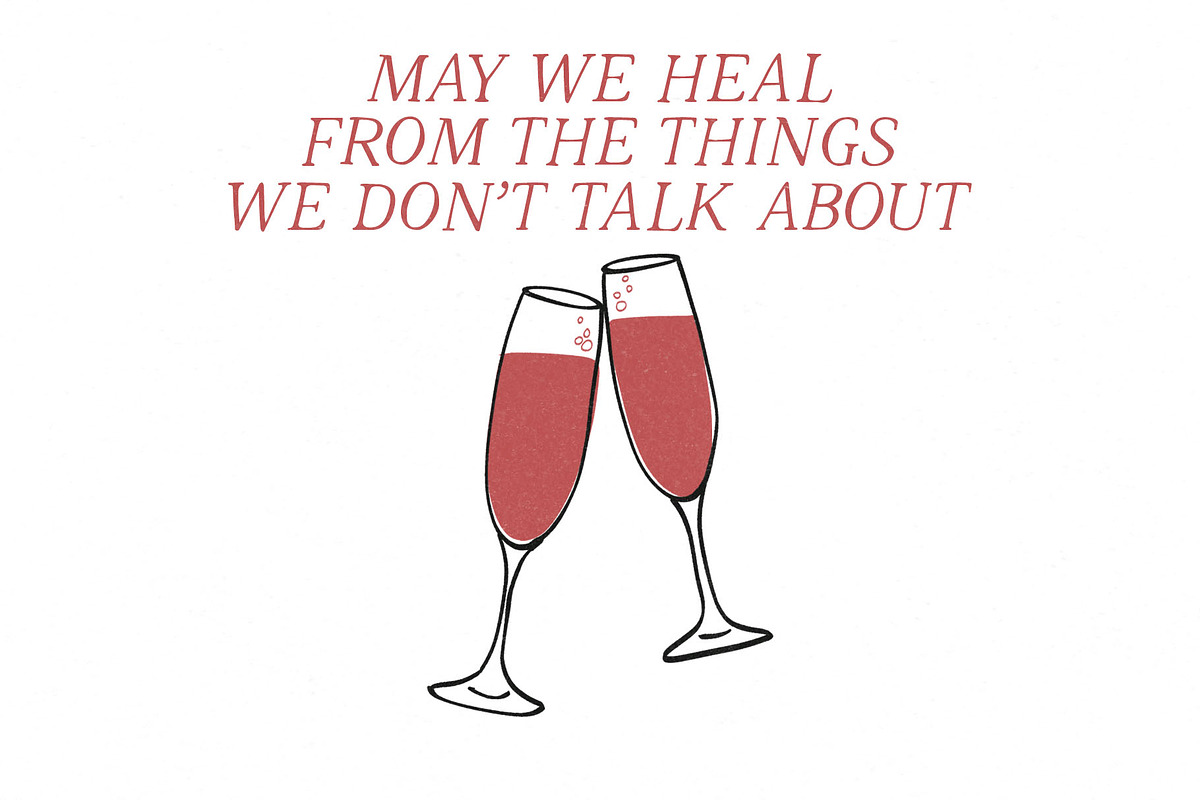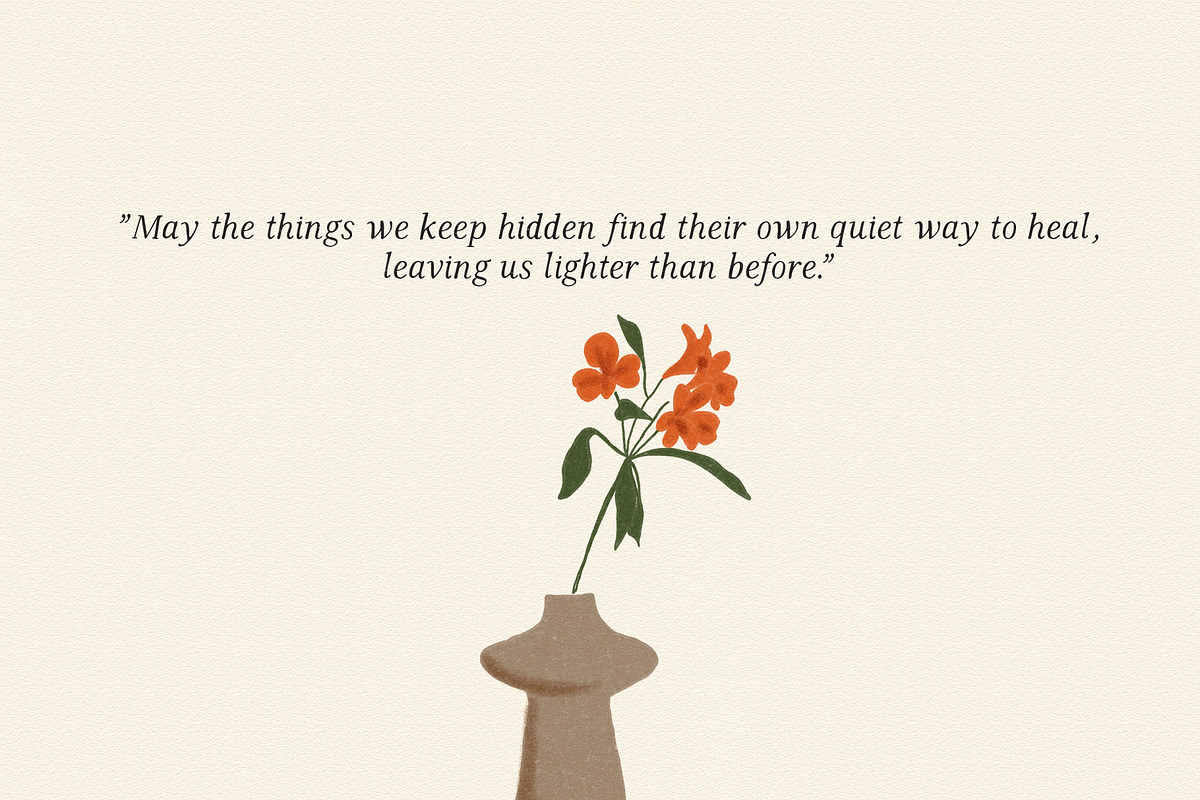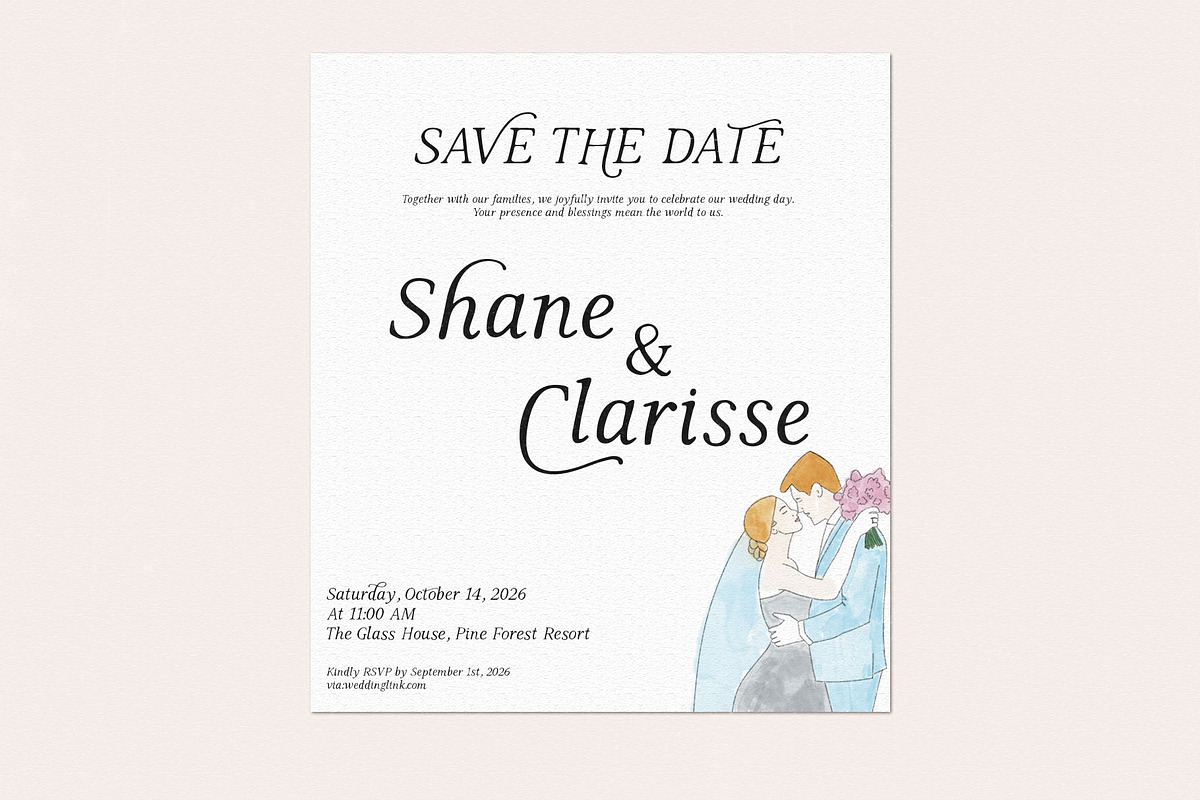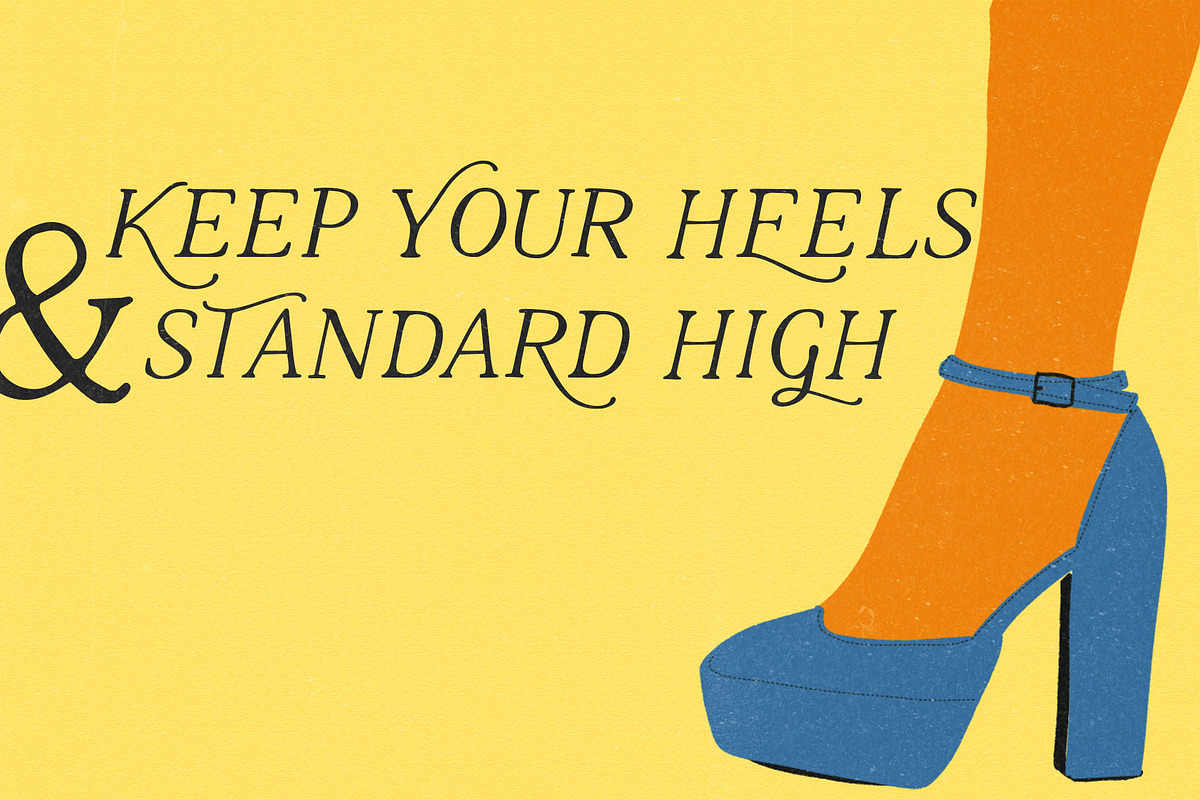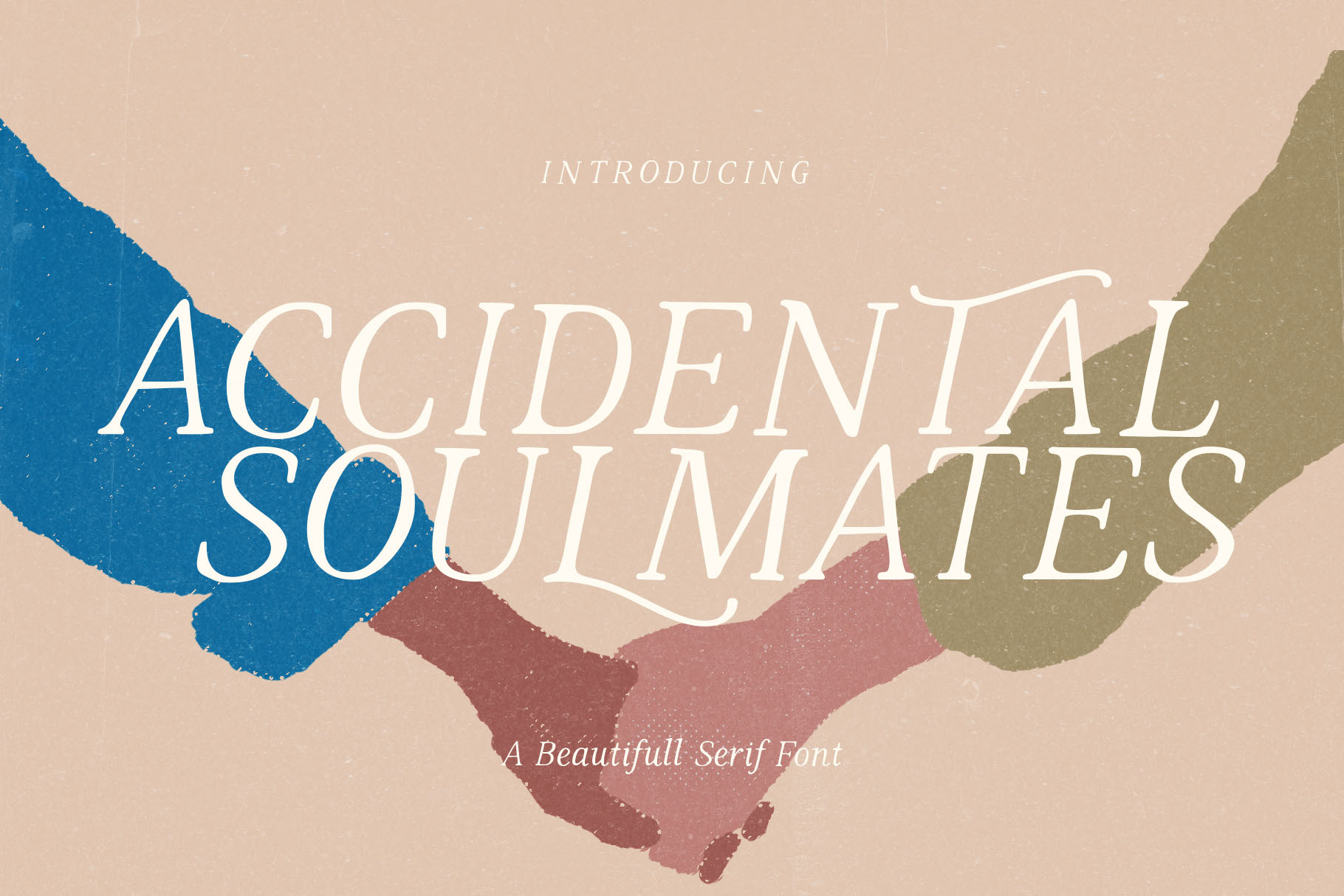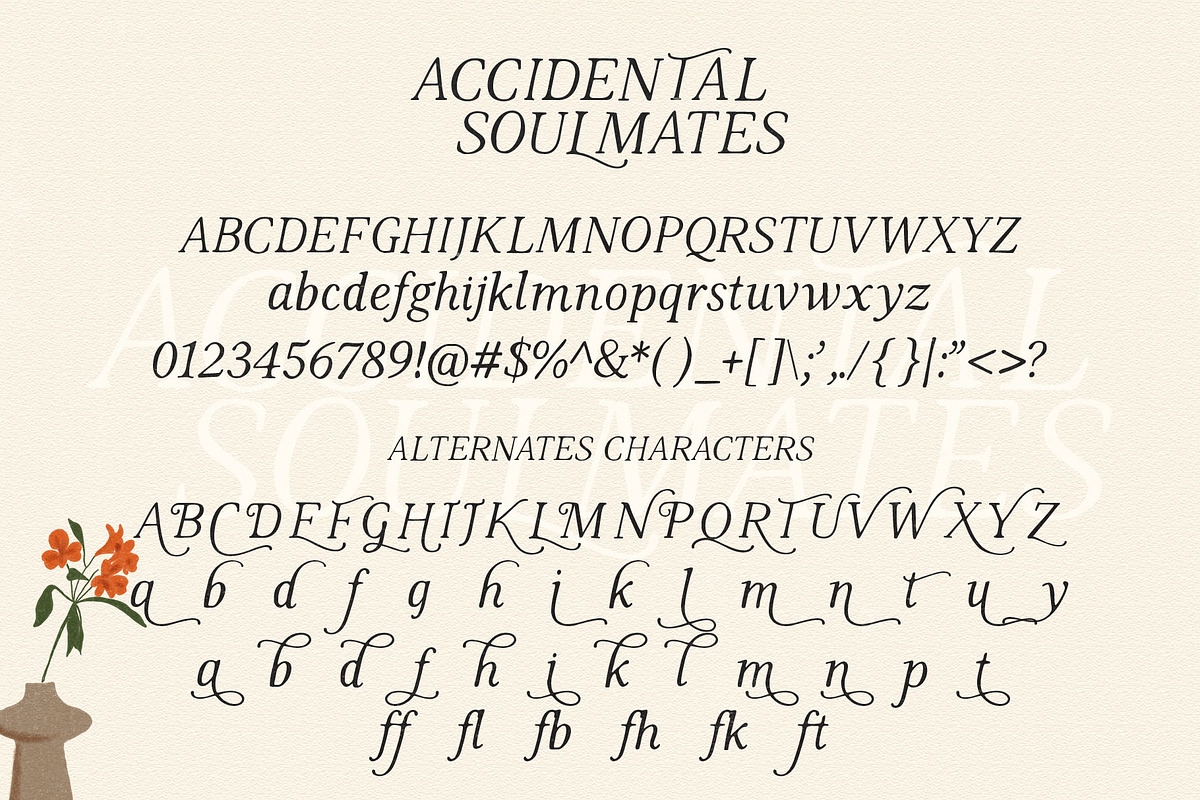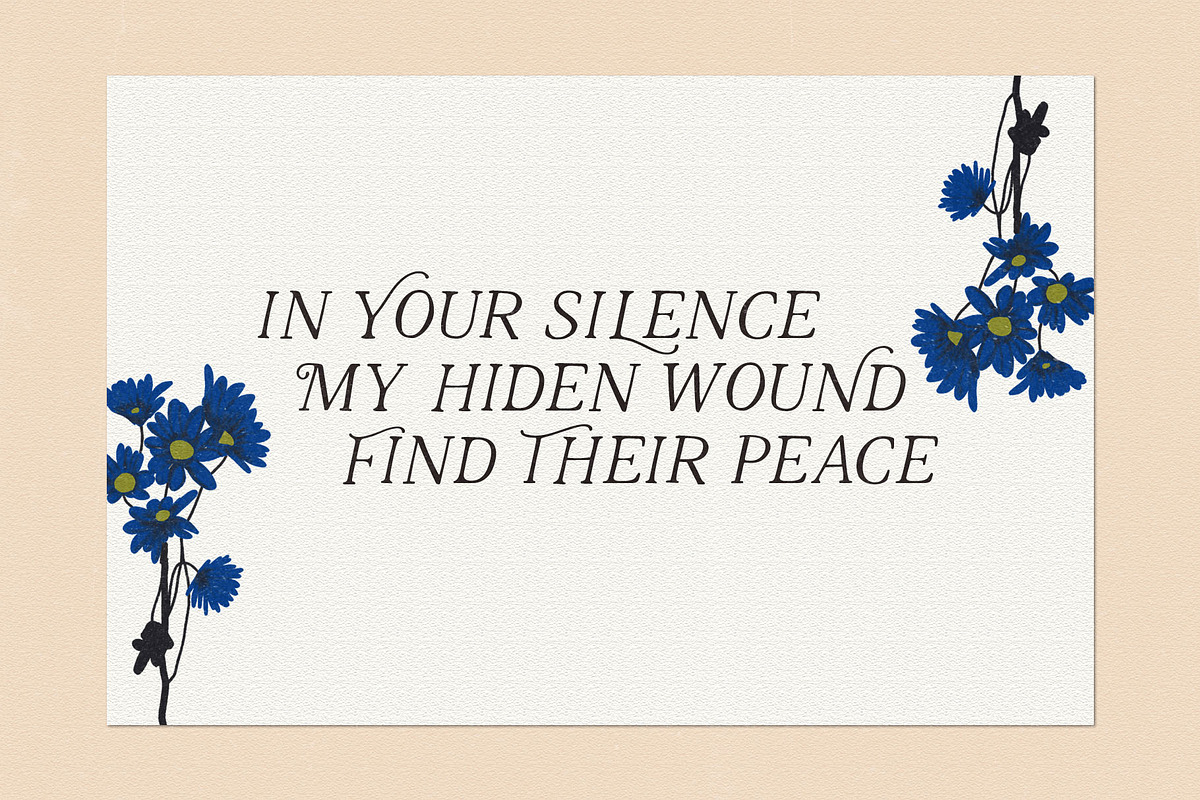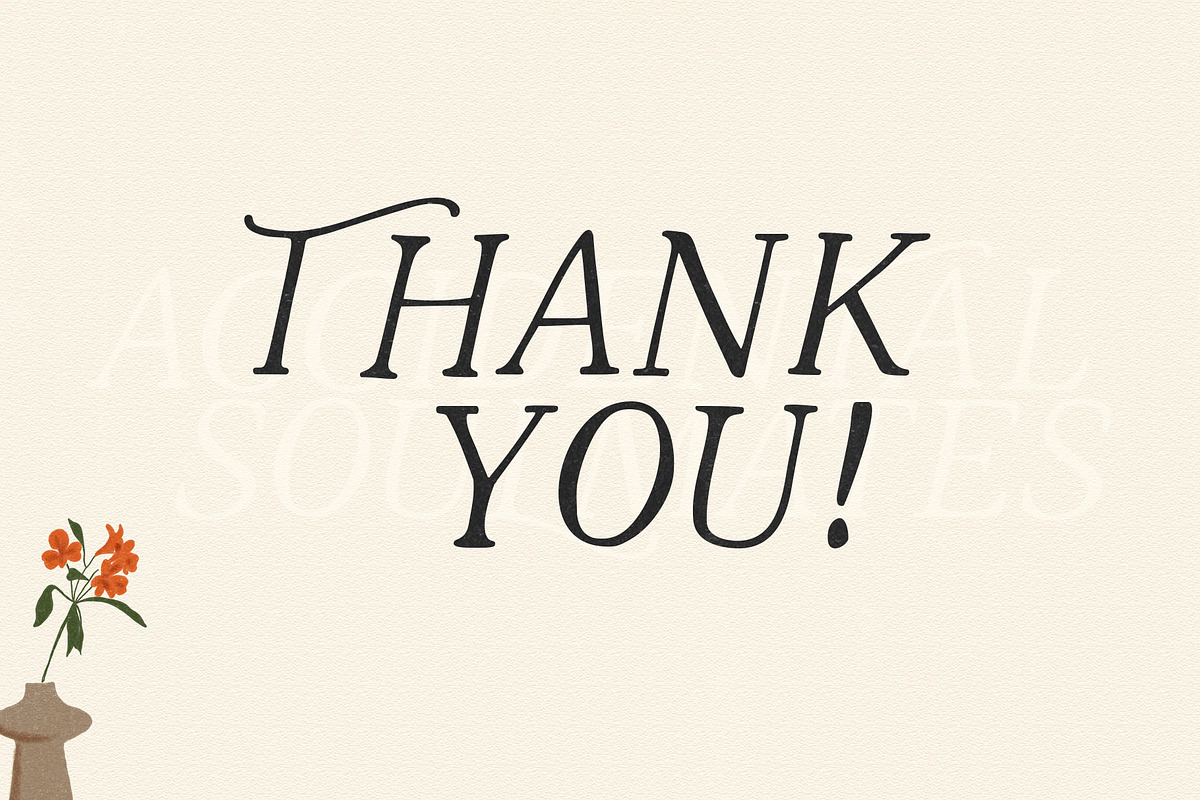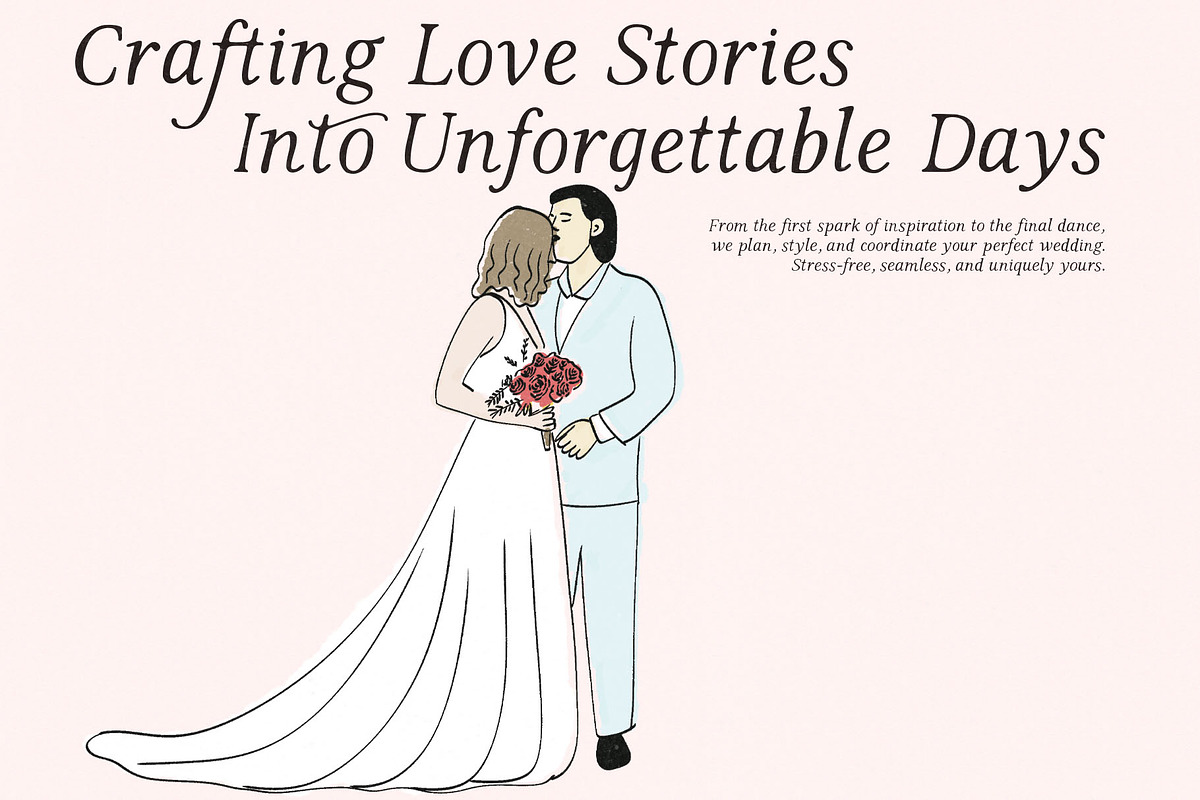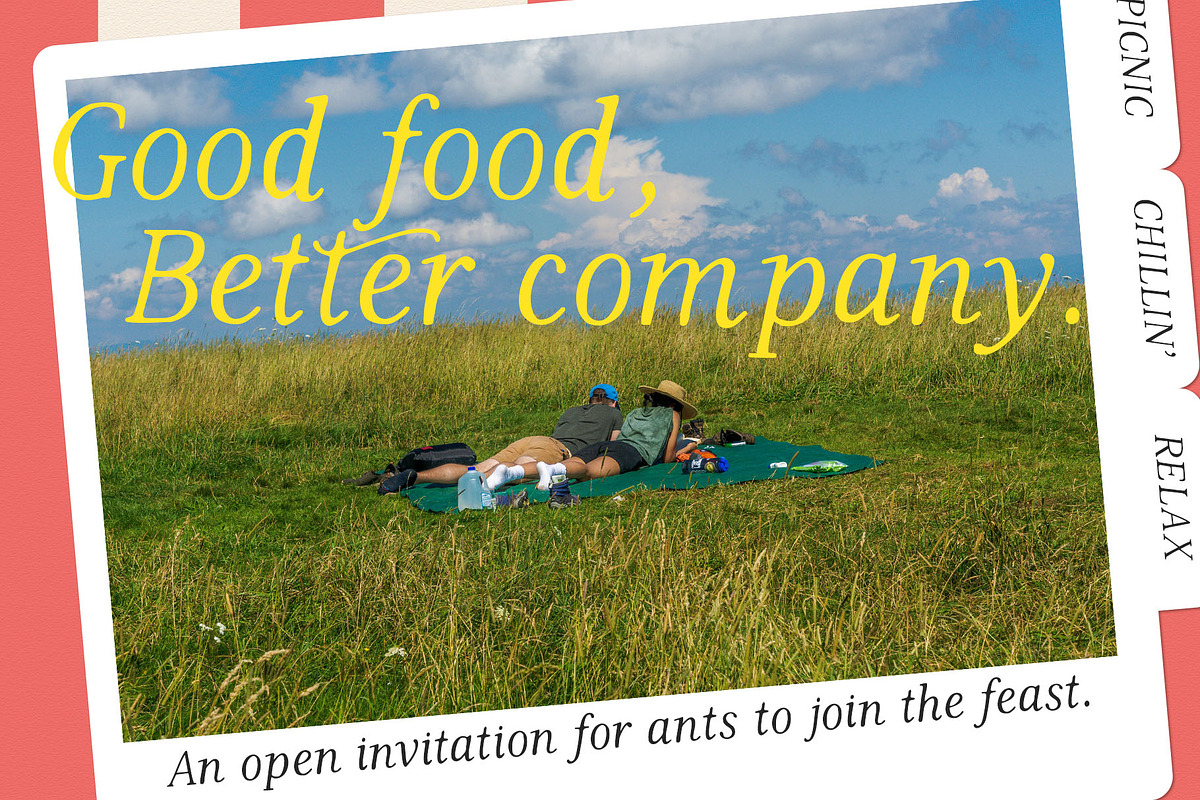
Accidental Soulmates - Romantic Font
Accidental Soulmates is an elegant, sweeping serif italic typeface designed to capture the magic of unexpected connections. Striking the perfect balance between classic sophistication and modern romance, this font features fluid, expressive slants and delicate linework that bring a poetic touch to any design project.
Built with versatility in mind, Accidental Soulmates is packed with advanced OpenType features, including dual stylistic sets (ss01 & ss02) and a library of seamless ligatures. These features allow you to effortlessly customize characters, creating beautiful, interlocking letterforms that feel completely custom-made.
Bring a touch of destiny and timeless beauty to your typography with Accidental Soulmates.